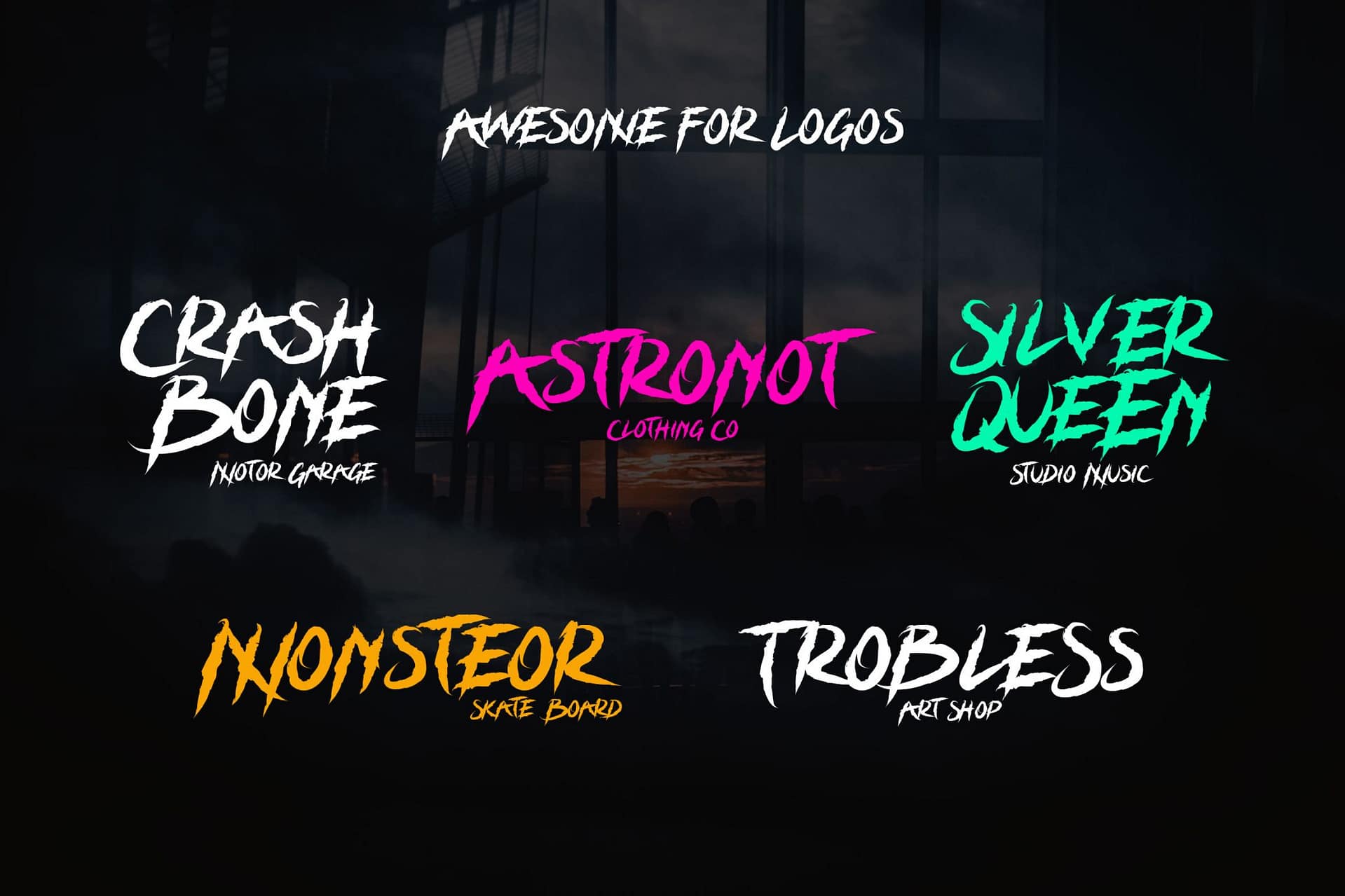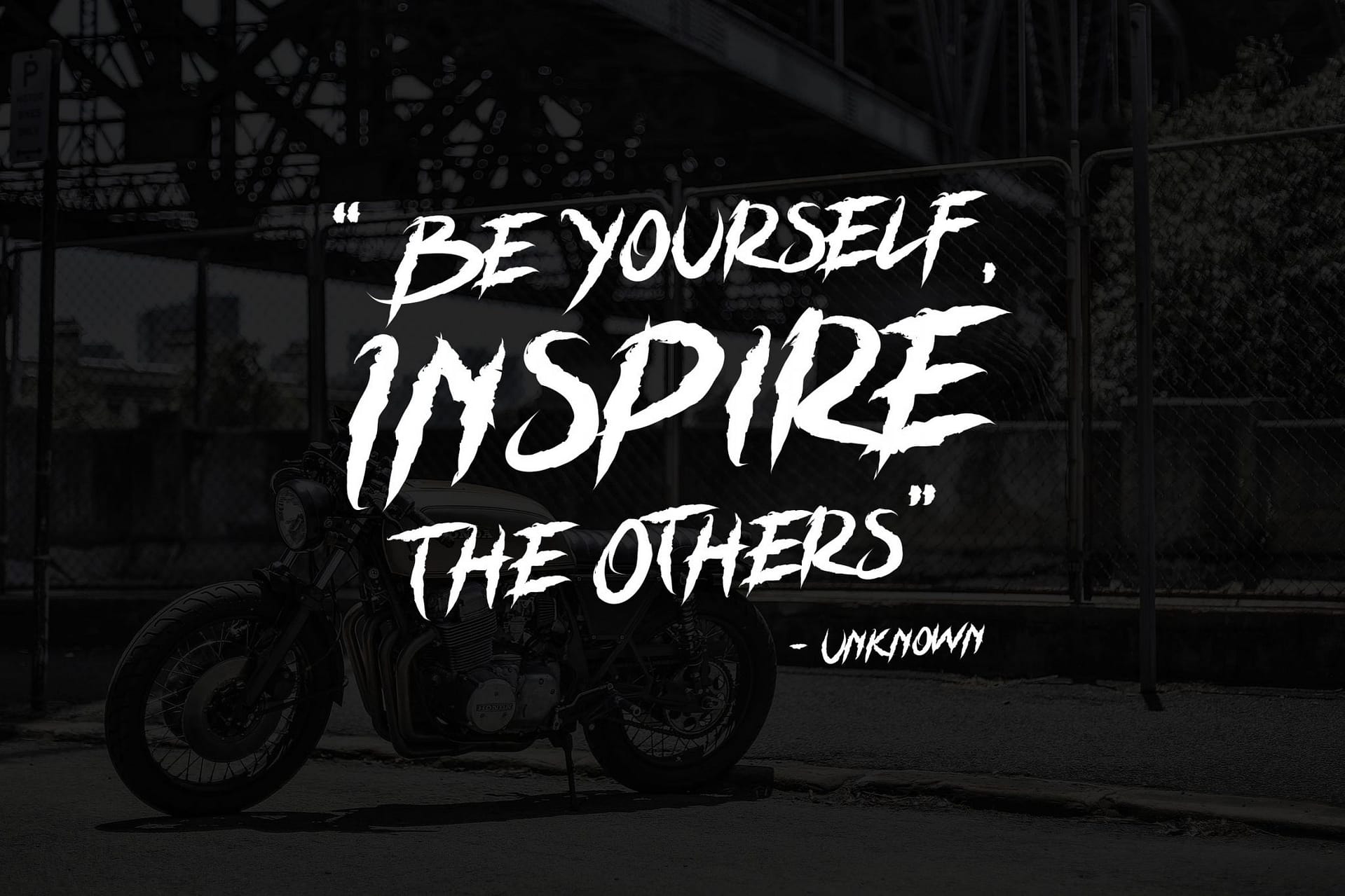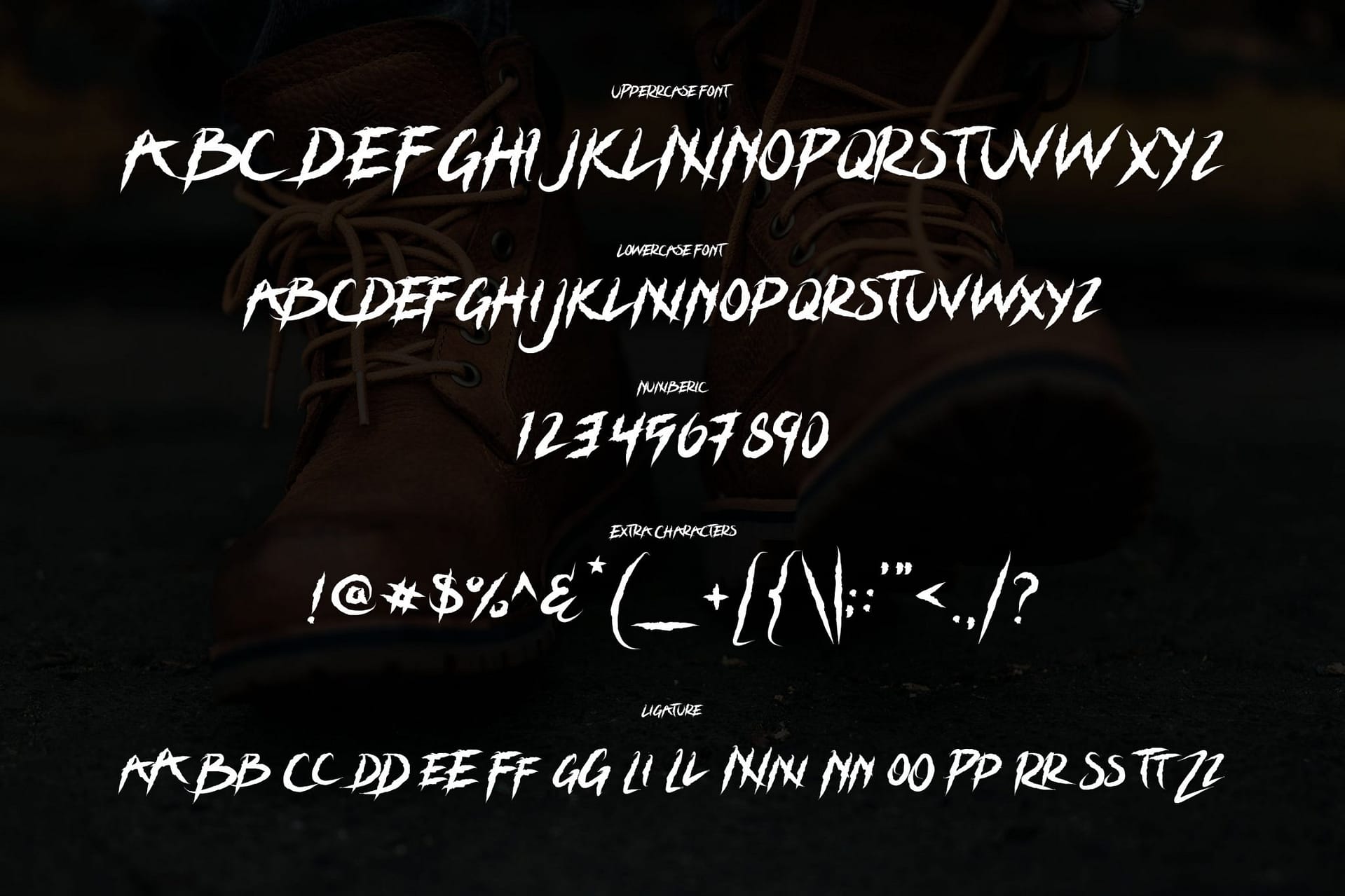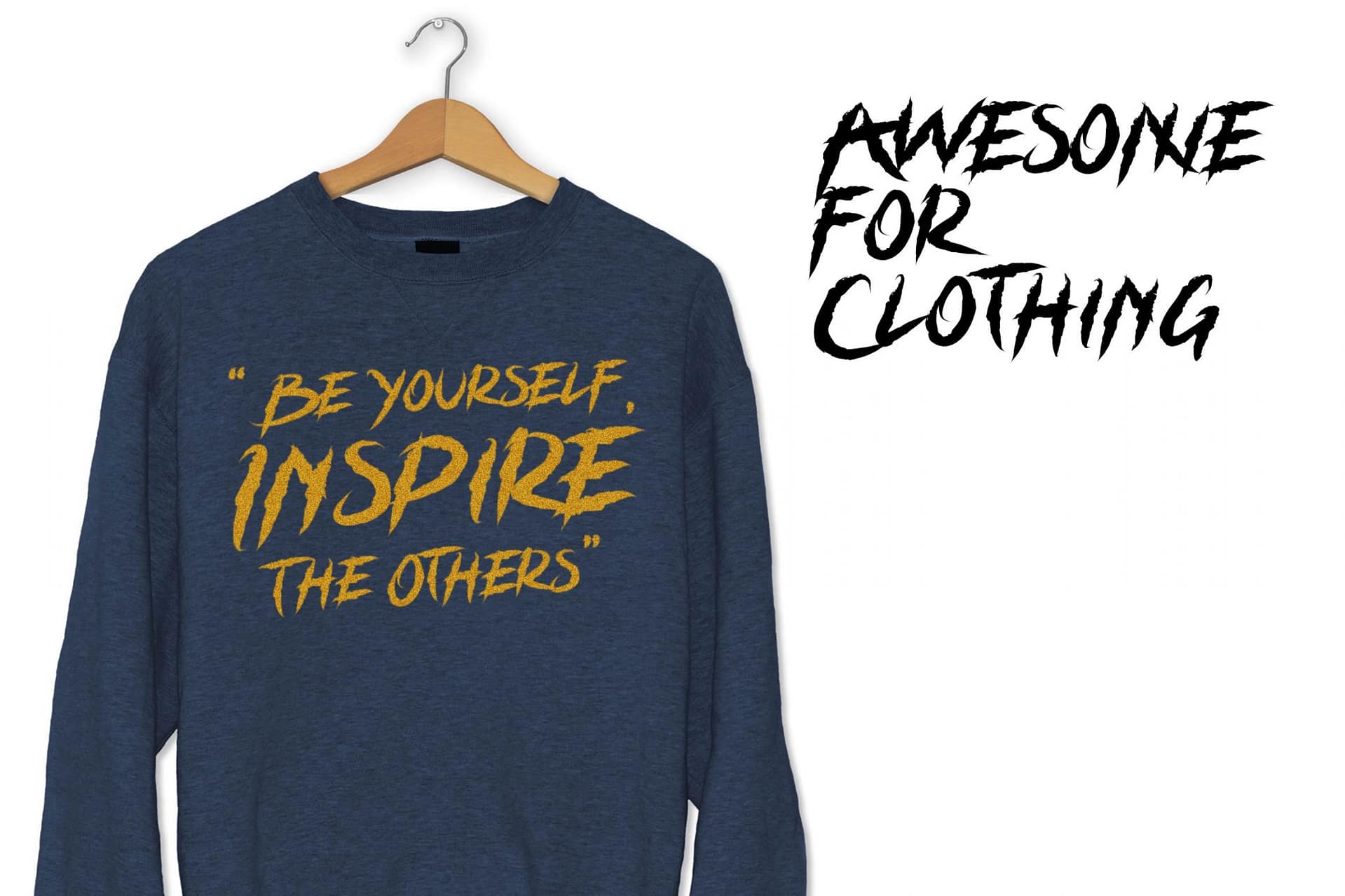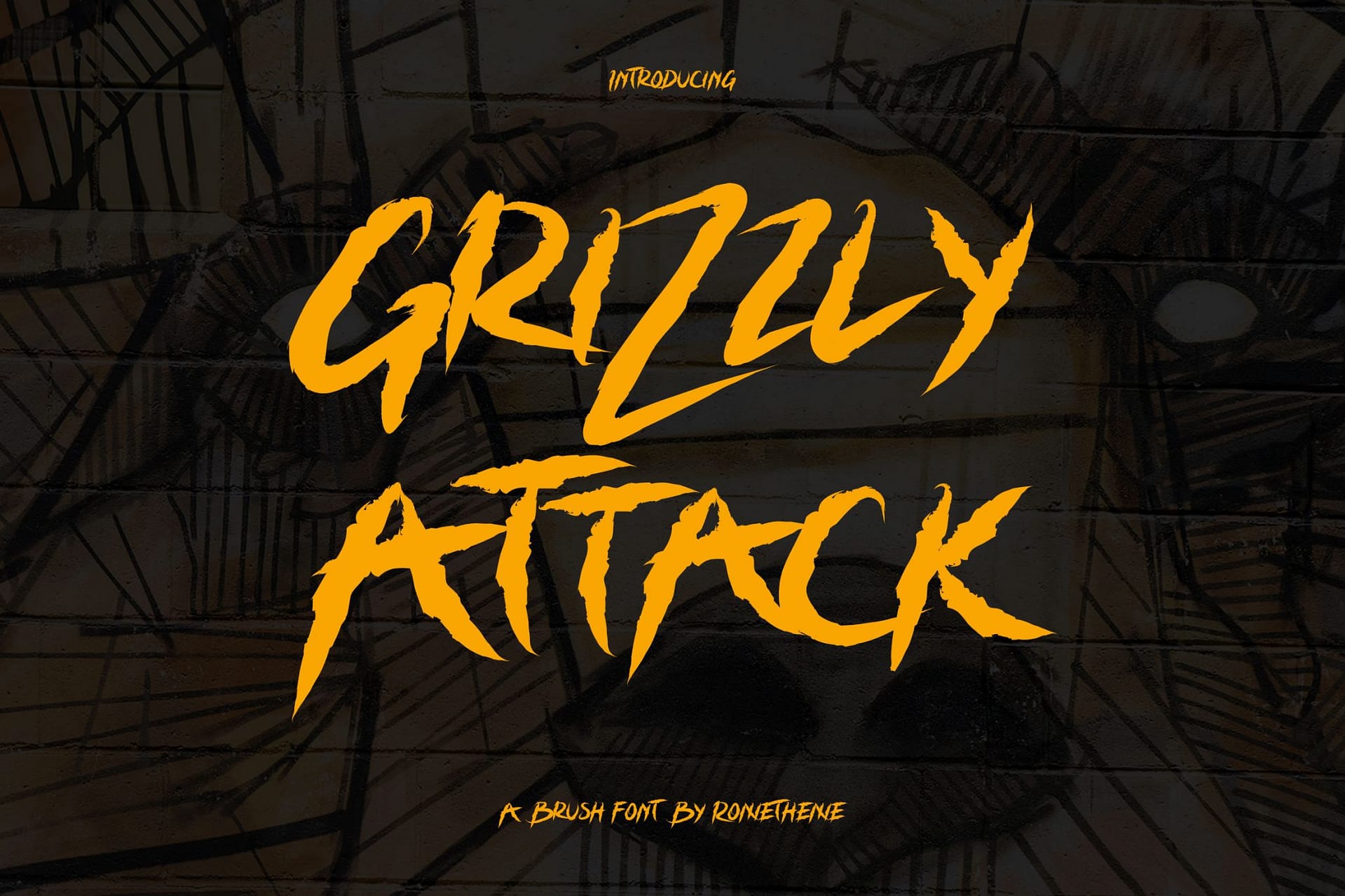
Grizzly Attack - Brush Font
Description
Grizzly Attack is a fierce and dynamic brush font by Rometheme that embodies raw energy and boldness. This font features sharp, aggressive strokes and an intense design style, making it perfect for projects that require a wild, adventurous, or edgy touch.
Key Features:
1. Aggressive Brush Strokes: The sharp, hand-drawn design creates a sense of power and movement.
2. High Impact Design: Perfect for grabbing attention with its bold and edgy appearance.
3. Versatile Applications:
• Adventure or outdoor branding
• Music album covers or event posters
• Apparel and merchandise
• Sports team logos
• Graffiti-inspired designs
4. Rugged Aesthetic: Evokes strength and boldness, ideal for themes like wildlife, sports, or urban culture.
Ideal For:
• Graphic designers creating bold and adventurous visual content.
• Brands or businesses in outdoor, extreme sports, or music industries.
• Projects that aim to convey strength, intensity, or rugged charm.
Applications:
• Event Posters: Great for promoting rock concerts, festivals, or extreme sports events.
• Branding: Ideal for adventure gear companies, gyms, or rugged outdoor brands.
• Apparel: Suitable for t-shirts, hoodies, and streetwear.
• Album Covers: Perfect for music genres like rock, metal, or hip-hop.
• Social Media: Create striking and impactful posts or banners.
Grizzly Attack brings a raw, untamed energy to any project. Whether you’re designing for a bold brand, promoting an intense event, or crafting standout merchandise, this font is the perfect choice to deliver a powerful visual impact.